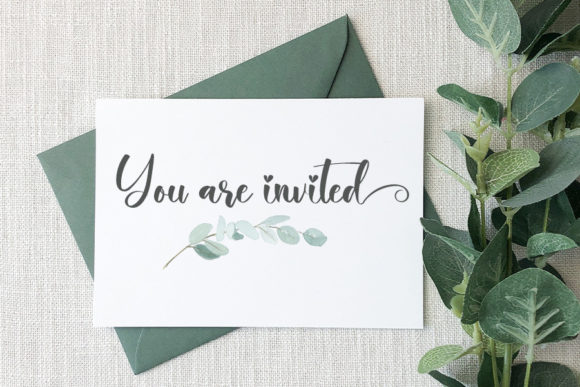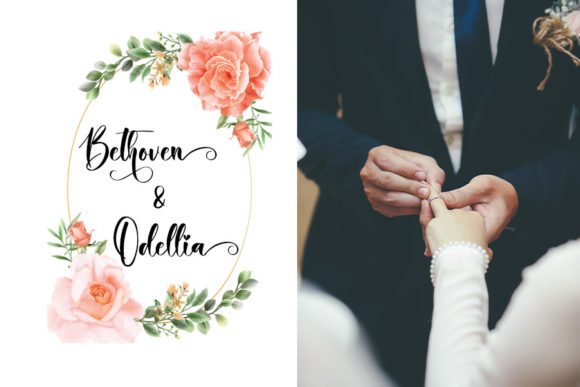
Mochaciattos Font
db-ku.com - Script & Handwritten -- Mochaciattos feels equally charming and elegant. It looks stunning on wedding invitations, thank you cards, quotes, greeting cards, logos, business cards and every other design which needs a handwritten touch.